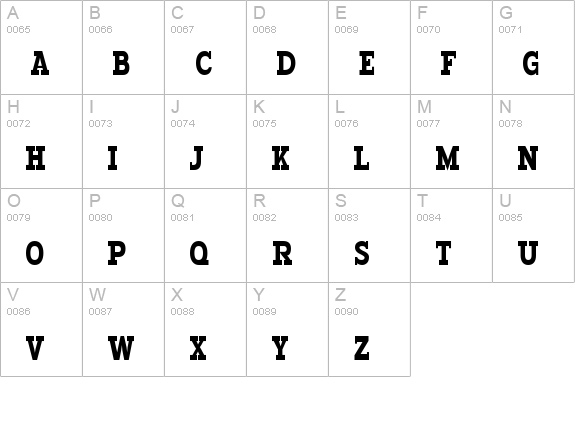
Typodermic Font Details
Typodermic font is an exquisite typeface that captures the essence of modernity and sophistication. With its sleek and clean lines, this font exudes a sense of professionalism and elegance. Its versatility makes it suitable for a wide range of design projects, from logos and headlines to book covers and posters. But what sets Typodermic font apart is not just its impeccable design, but also its accessibility. It is available for free download at FontsMarket.com, making it easily accessible to designers, enthusiasts, and anyone in need of a high-quality font. This means that you can elevate your designs without breaking the bank or compromising on style. The beauty of Typodermic font lies in its attention to detail. Every curve, line, and stroke has been meticulously crafted to create a harmonious and visually pleasing typeface. Whether you're designing for print or digital media, this font will bring a touch of professionalism and sophistication to your work. The versatility of Typodermic font is another reason why it has gained such popularity. It seamlessly adapts to various design styles and can be used for both formal and informal projects. Its clean and legible characters ensure that your message is conveyed effortlessly. Typography is an essential element of design, and Typodermic font allows you to make a bold statement with your type. Its modern and timeless aesthetic will never go out of style, making it a reliable choice for any project, whether it's a corporate presentation or a personal blog. So why wait? Download Typodermic font for free at FontsMarket.com and unlock a world of possibilities for your design projects. With its impeccable design, versatility, and accessibility, this font is sure to become an indispensable tool in your creative arsenal. Elevate your designs and captivate your audience with Typodermic font today.